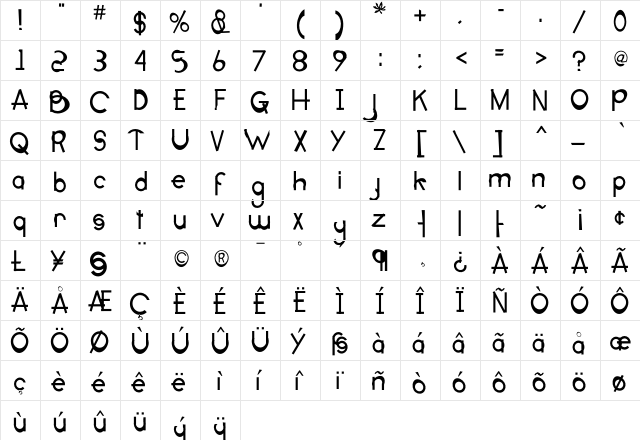
OccidentalDismount Regular Font Preview
OccidentalDismount Regular
Design Context for OccidentalDismount Typeface
OccidentalDismount offers clean, dependable letterforms without strong stylistic allegiance, making it a practical choice for designers who need flexibility.